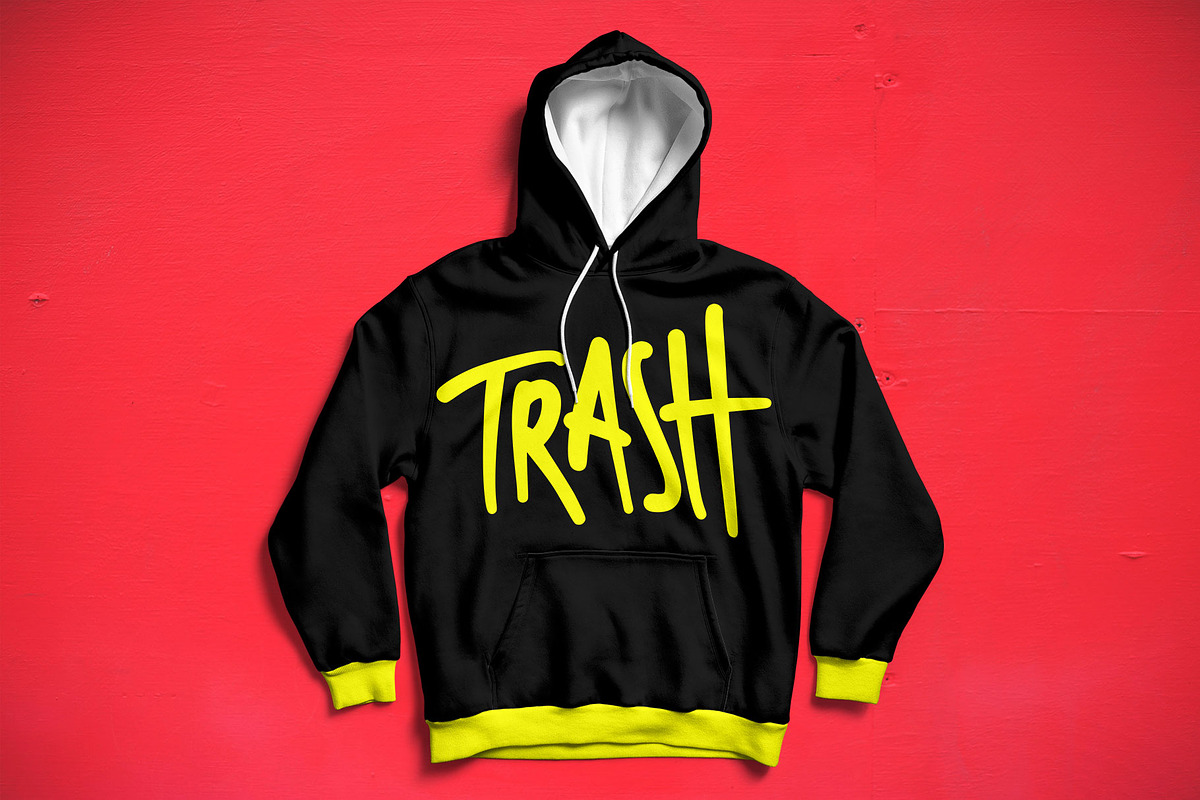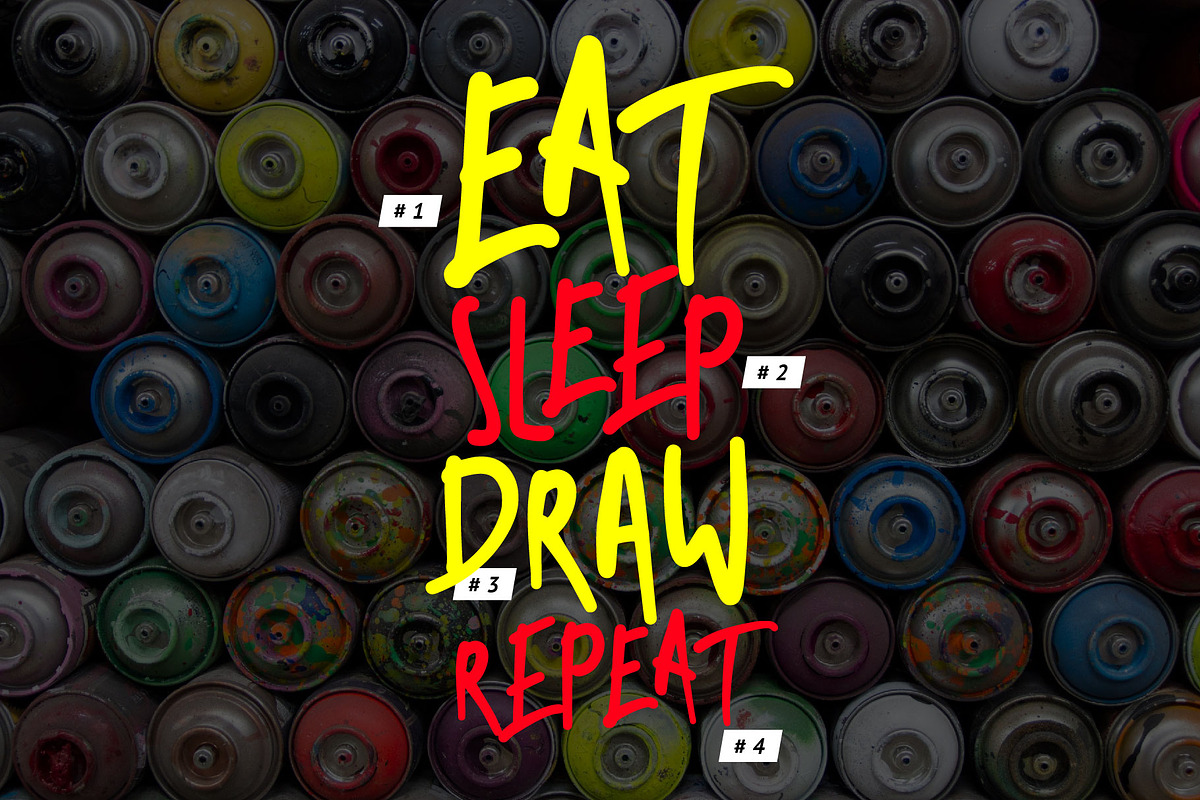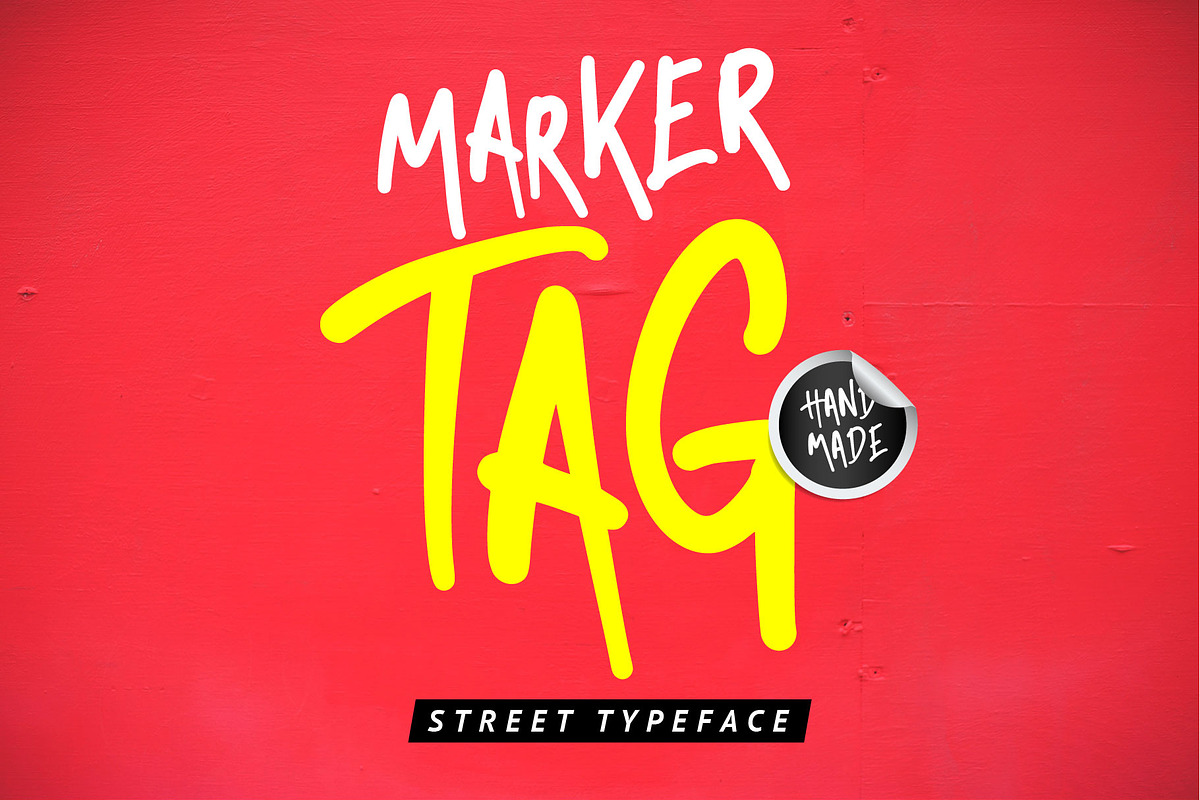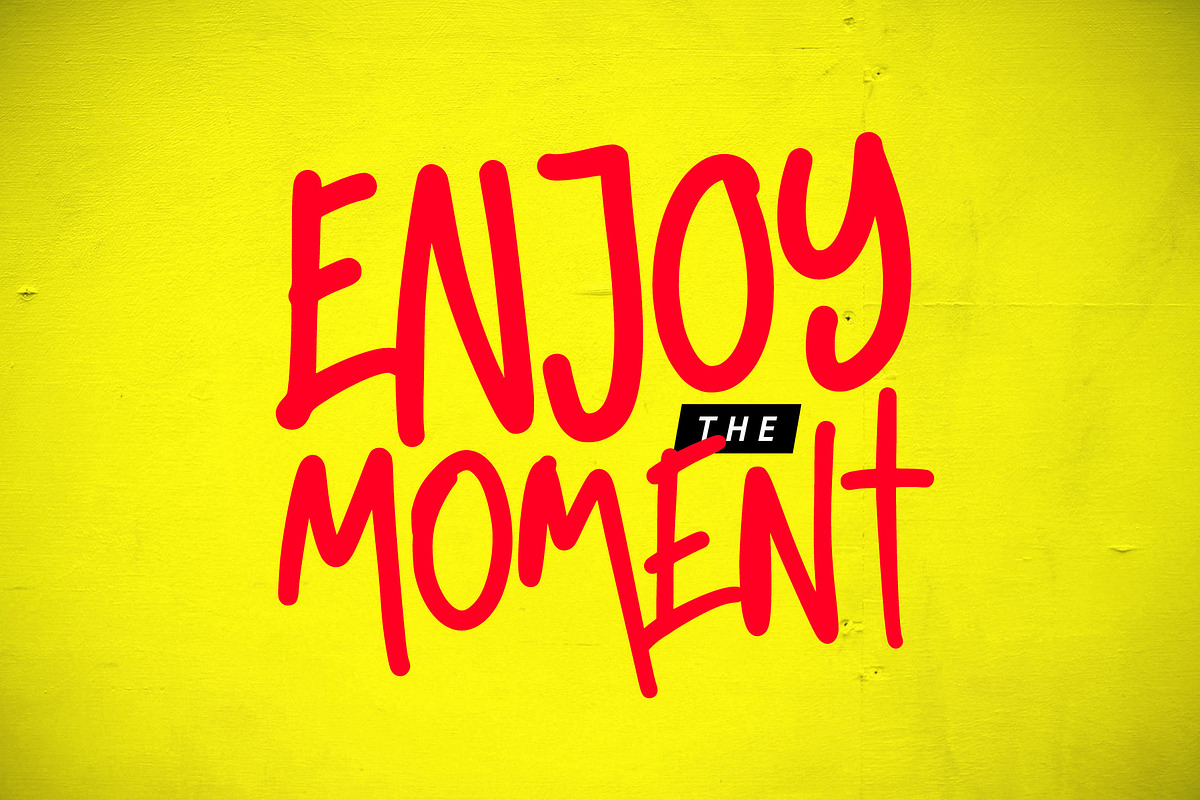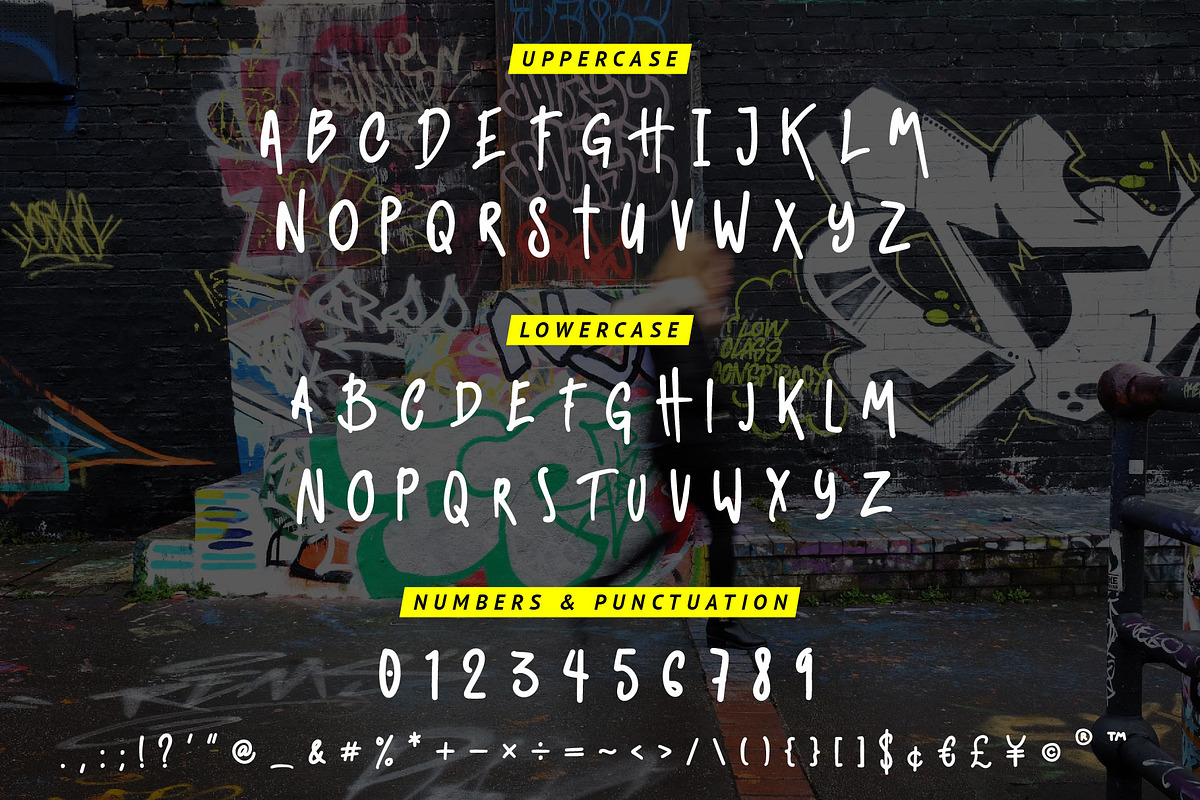
Marker Tag urban graffiti font
Introducing Marker Tag
Marker Tag is a decorative, street art inspired modern graffiti font. This font includes upper and lowercase characters, punctuation and numerals. It is perfect for:
- Logos
- Posters
- Headlines
- Apparel
- Graffiti tags
- & more